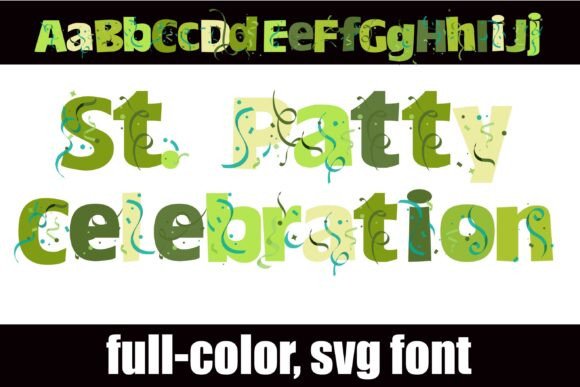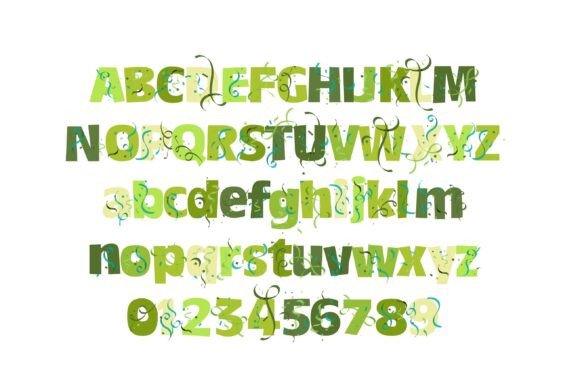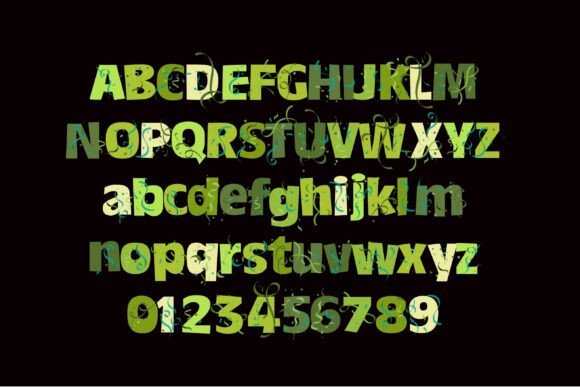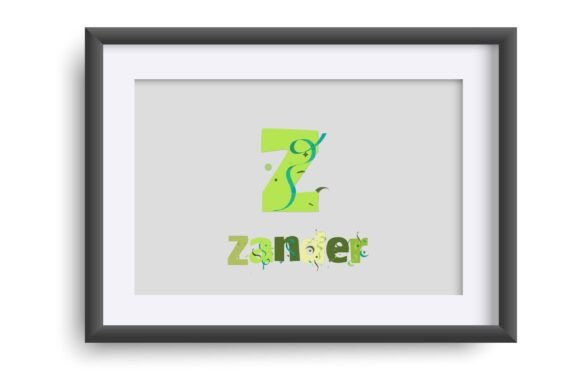
St. Patty Celebration Font
About the St. Patty Celebration Font
Experience the unique personality of St. Patty Celebration Font, a font designed for impact. This full-color font features a simple sans serif font surrounded with confetti in a green color palette. There is an alt version you can access through your system’s character map that contains additional colors of all the letters. This font works best for titles, displays, posters and more. Please note color fonts will show as black in non compatible programs. This font type is compatible with Silhouette Studio.